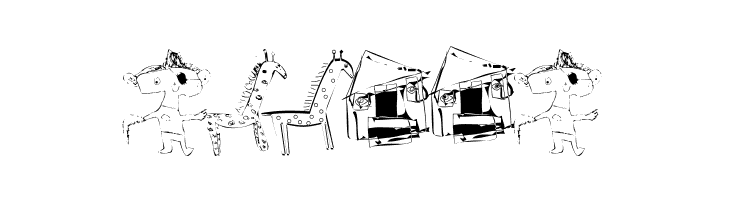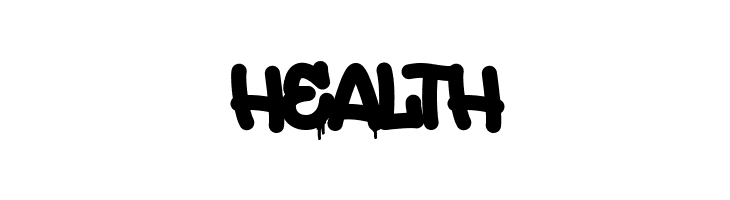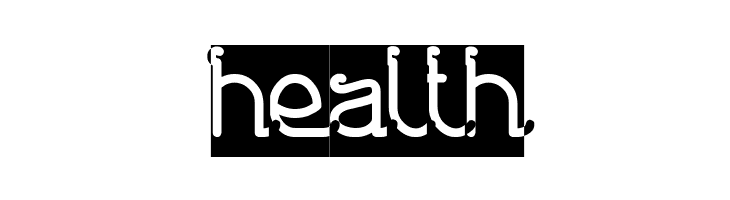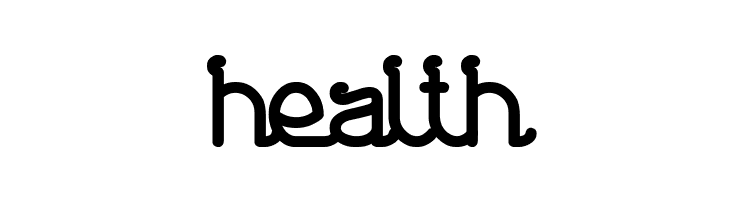
Painter PERSONAL USE ONLY Font
Font by Måns Grebäck
A bold, cursive font with a flowing, handwritten style.
Painterz Font
A bold, graffiti-inspired font with a playful, urban aesthetic.
XamStern Font
A highly stylized, abstract font with sharp, angular lines and a chaotic aesthetic.
Painter Decorator Font
A playful, hand-painted style font with bold, irregular strokes.
Painter pointer Bold Font
Vanessa Bays
A bold, playful font with rounded, looping terminals and consistent stroke width.
Painter Font
A bold, distressed font with a hand-painted, grunge aesthetic.
Behind the Painter Font
A bold, expressive handwritten script font with smooth curves and a dynamic style.
Painter pointer Font
Dieter Steffmann
A playful and artistic font with rounded terminals and decorative accents.
Thart_World_Painters Font
InermediaSTUDIO
Not a valid font; it's a collection of artist portraits and signatures.
Barely Painter Font
Claus Eggers Sørensen
Painter in the Heart Font
Font by Cat.B
A stylish, cursive handwritten font suitable for elegant and personal design projects.
Drunk Painter Font
Måns Grebäck
A whimsical, textured hand-drawn font suitable for creative and informal designs.